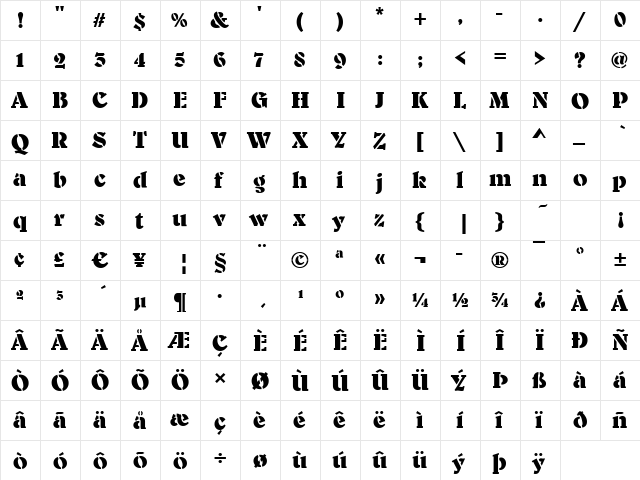
Benson-Stencil Bold
Design Context for Benson-Stencil Typeface
Benson-Stencil borrows the utilitarian aesthetic of stencil lettering, with its characteristic cutaways and no-frills construction lending an industrial edge. The heavy weight commands attention and anchors typographic hierarchies.
Ideal for industrial branding, streetwear, military-adjacent aesthetics, and urban signage projects.
Pro Tip: Pair Benson-Stencil with raw, utilitarian design elements — exposed concrete textures, flat colour, and minimal ornamentation suit it well.